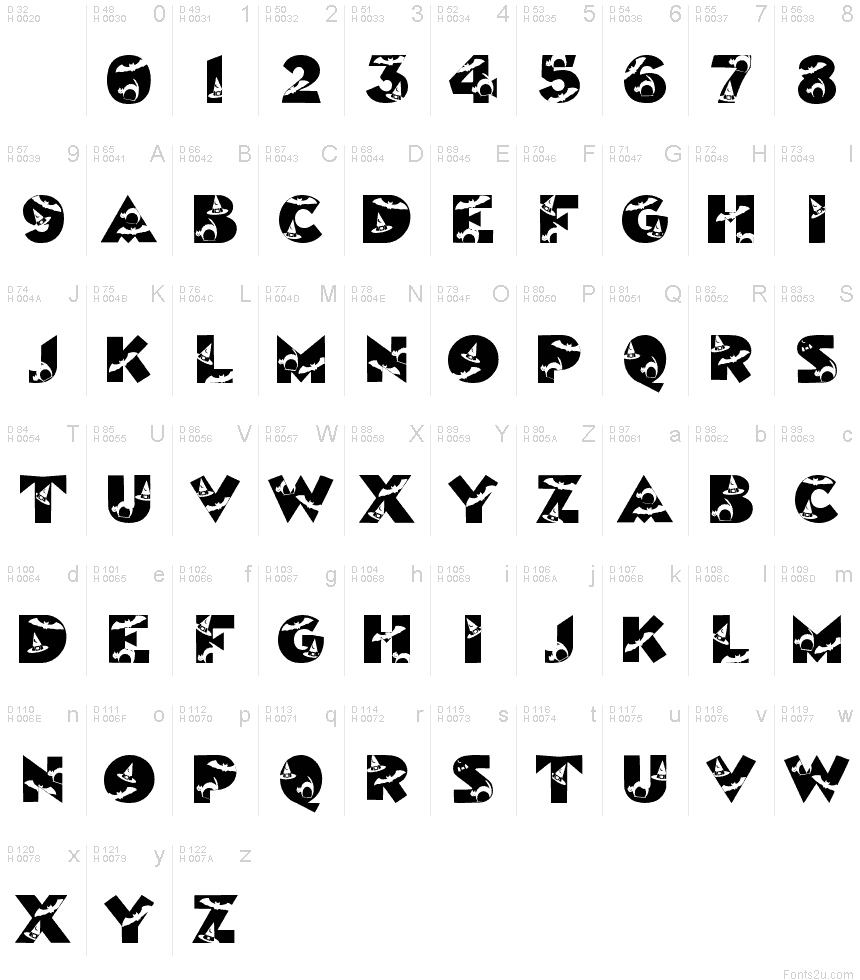
HalloweenKiddyFont
Halloween Kiddy Font by Lime is a free decorative display typeface that turns every letter into a tiny Halloween scene. Chunky, inky-black shapes are carved out with playful bats, witch hats, and crescent moons, giving your text a cut-paper, craft-table feel that kids recognize instantly. It reads like a bold shout from a haunted classroom door: fun, a little spooky, never too scary.
Using Halloween Kiddy Font, you can whip up kids’ party invitations, classroom posters, trick-or-treat signs, activity sheets, stickers, and social media graphics that look hand-crafted without any extra illustration work. This free font shines at larger sizes where the little Halloween icons stay crisp and visible; pair it with a simple rounded sans serif for body text so the lettering stays legible while the spooky shapes do the storytelling.